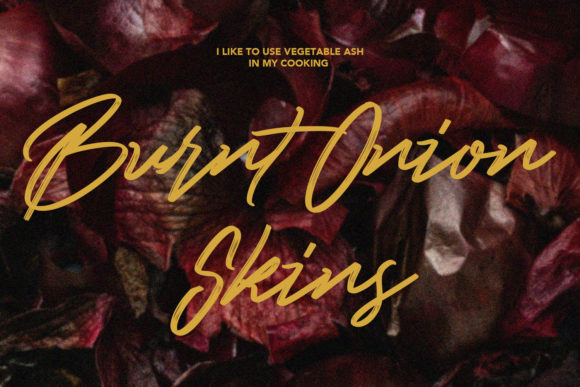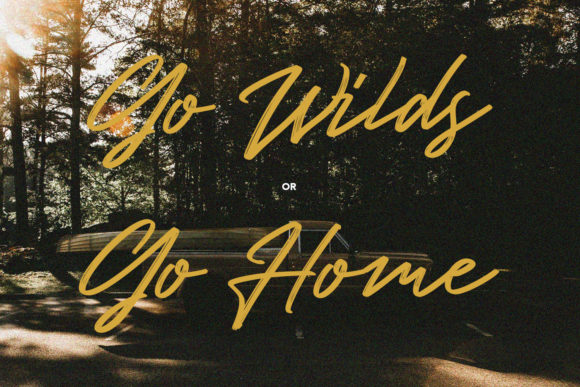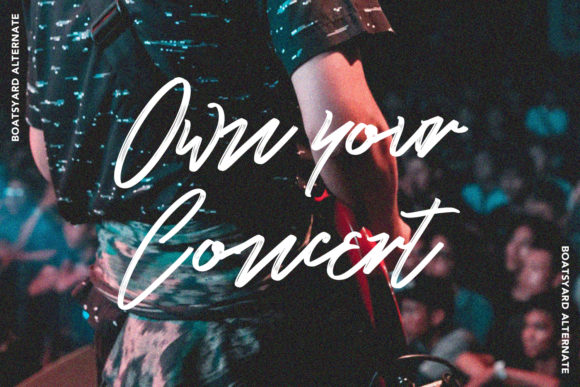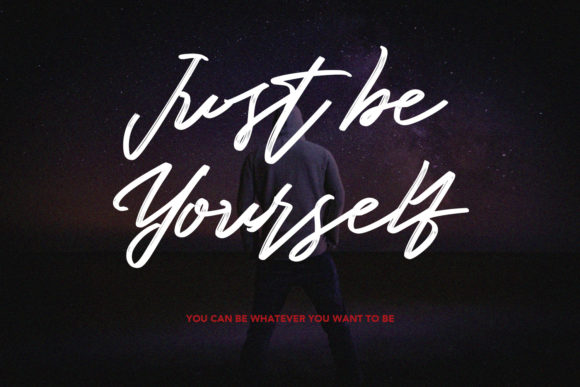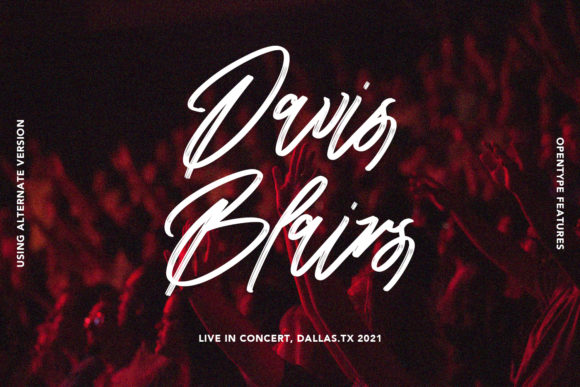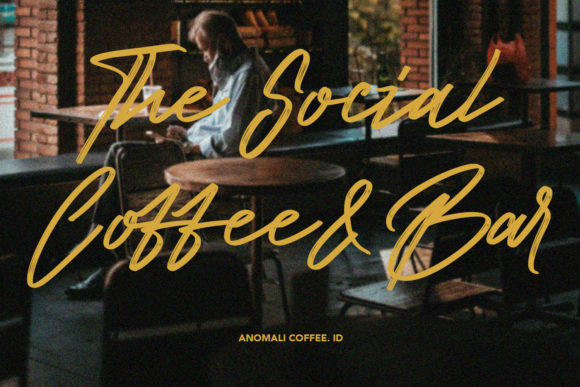
Introducing Boatsyard Font: A Lovely Brushed Handwritten Font
Are you a designer or crafter looking for a unique and stylish font to elevate your creative projects? Look no further than Boatsyard Font, a lovely brushed handwritten font that is sure to impress. With its dazzling style and versatility, Boatsyard Font is perfect for a wide range of applications, from logos and wedding invitations to headings, t-shirts, and more.
What is Boatsyard Font?
Boatsyard Font is a beautifully crafted brushed handwritten font that exudes a sense of elegance and sophistication. Its unique blend of smooth lines and subtle imperfections gives it a charming, organic feel that is perfect for adding a personal touch to your designs. Whether you’re creating a logo, invitation, or social media graphic, Boatsyard Font is sure to make your project stand out.
Key Features of Boatsyard Font
- Brushed Handwritten Style: Boatsyard Font features a beautiful brushed handwritten style that gives it a unique, organic feel.
- Versatile: Boatsyard Font can be used for a wide range of applications, including logos, wedding invitations, headings, t-shirts, letterhead, signage, labels, news, posters, badges, and more.
- Elegant and Sophisticated: Boatsyard Font exudes a sense of elegance and sophistication, making it perfect for high-end designs and projects.
- Easy to Read: Despite its handwritten style, Boatsyard Font is easy to read and understand, making it perfect for body text and headlines.
Uses for Boatsyard Font
Boatsyard Font is an incredibly versatile font that can be used for a wide range of applications, including:
- Logos: Create a unique and memorable logo for your business or brand with Boatsyard Font.
- Wedding Invitations: Add a touch of elegance and sophistication to your wedding invitations with Boatsyard Font.
- Headings and Titles: Use Boatsyard Font to create eye-catching headings and titles for your blog posts, articles, and social media graphics.
- T-Shirts and Merchandise: Create custom t-shirts, mugs, and other merchandise with Boatsyard Font.
- Signage and Labels: Use Boatsyard Font to create eye-catching signage and labels for your business or event.
- Posters and Flyers: Create stunning posters and flyers with Boatsyard Font.
- Badges and Certificates: Add a touch of elegance and sophistication to your badges and certificates with Boatsyard Font.
Why Choose Boatsyard Font?
There are many fonts to choose from, but Boatsyard Font stands out for its unique blend of style, elegance, and versatility. Here are just a few reasons why you should choose Boatsyard Font for your next project:
- Unique Style: Boatsyard Font has a unique and distinctive style that will set your project apart from the rest.
- Elegant and Sophisticated: Boatsyard Font exudes a sense of elegance and sophistication, making it perfect for high-end designs and projects.
In conclusion, Boatsyard Font is a lovely brushed handwritten font that is perfect for designers and crafters looking to add a touch of elegance and sophistication to their projects. With its unique style, versatility, and ease of use, Boatsyard Font is an excellent choice for a wide range of applications. Whether you’re creating a logo, invitation, or social media graphic, Boatsyard Font is sure to make your project stand out.